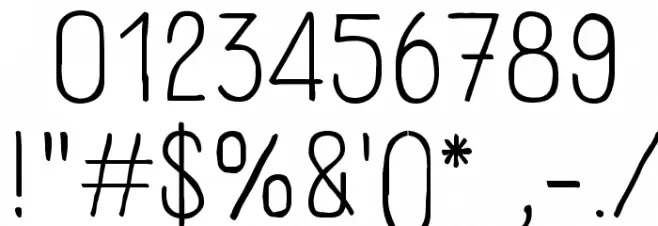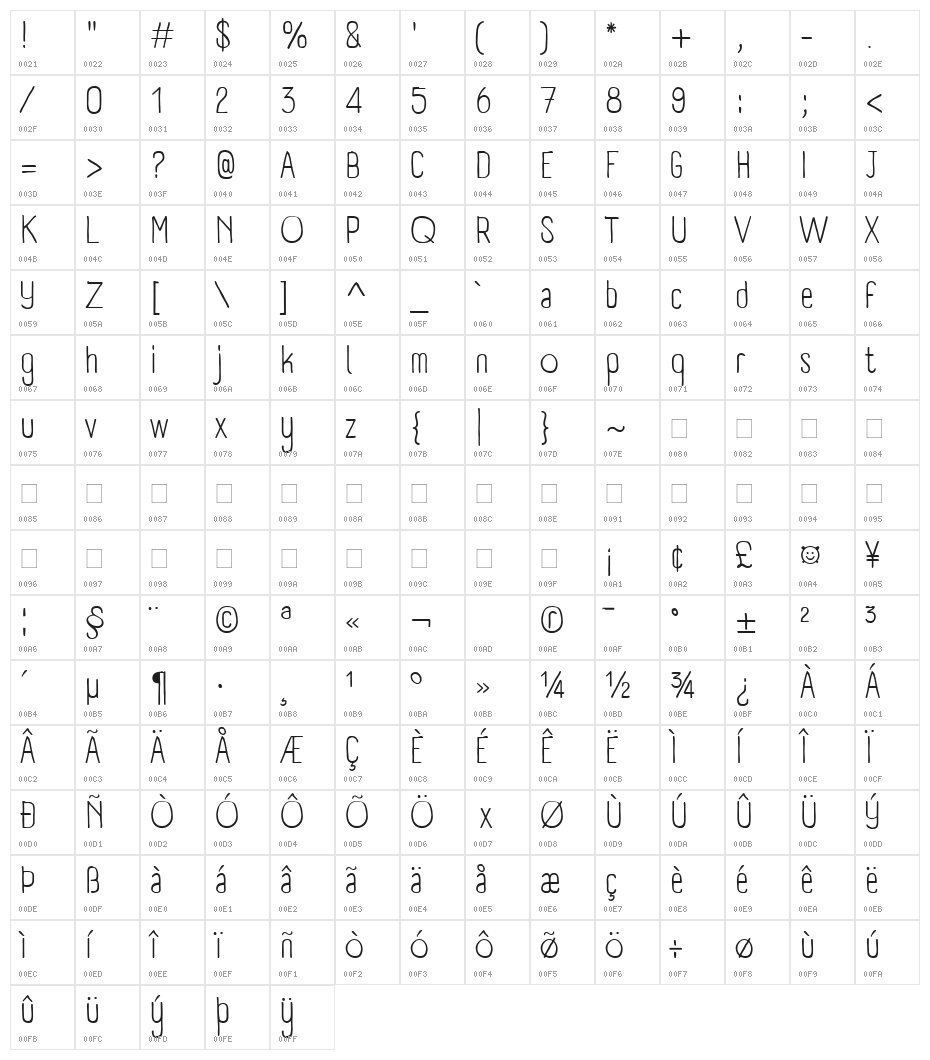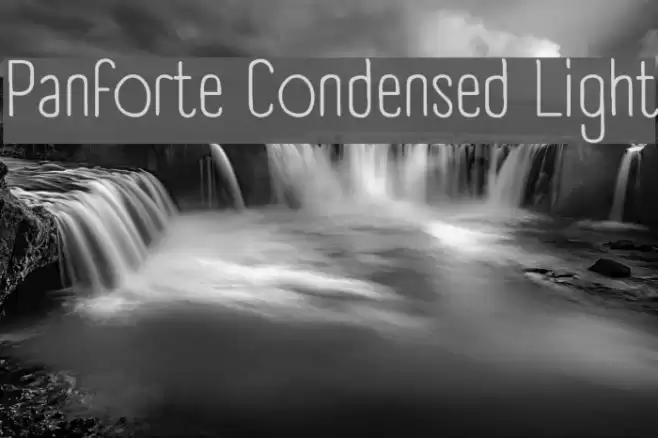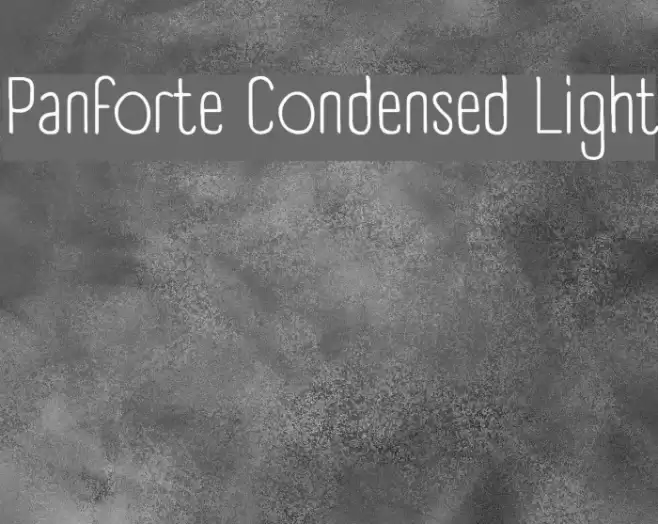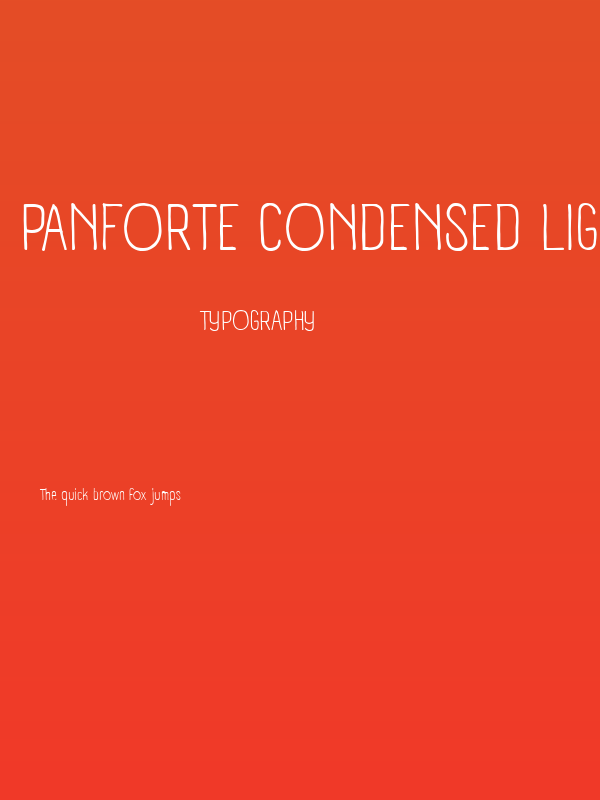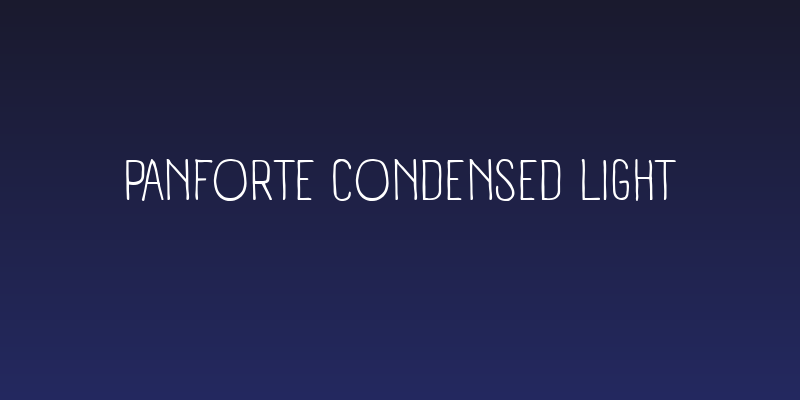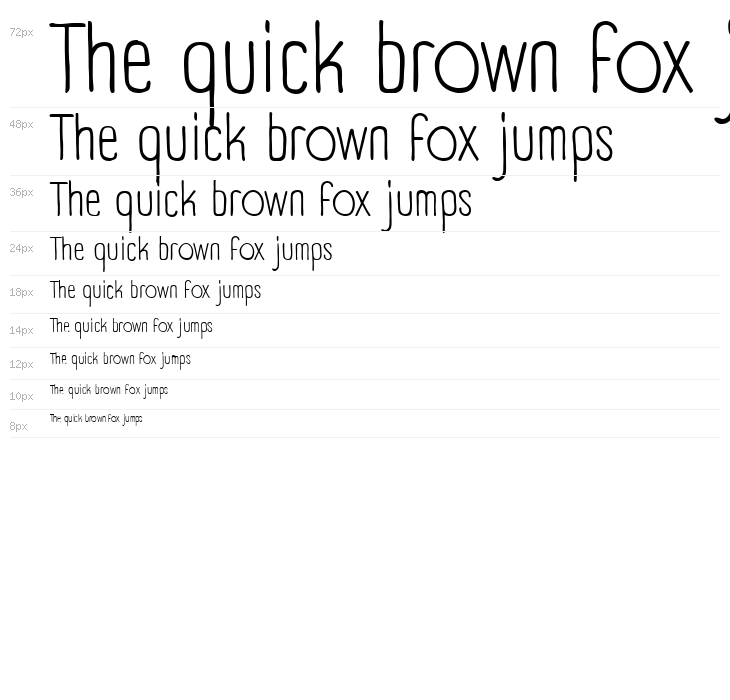
Panforte Condensed Light Font
Panforte Condensed Light Description
This font features a condensed and light design, characterized by its tall, narrow letterforms and minimal stroke contrast. The characters are clean and geometric, with a modern aesthetic that emphasizes simplicity and readability. The uppercase and lowercase letters maintain a consistent style, while the numerals and special characters complement the overall design. The font's structure is well-suited for projects that require a contemporary and sleek appearance.
| Proposed Projects | Ideal for modern branding, minimalist posters, and clean web design. |